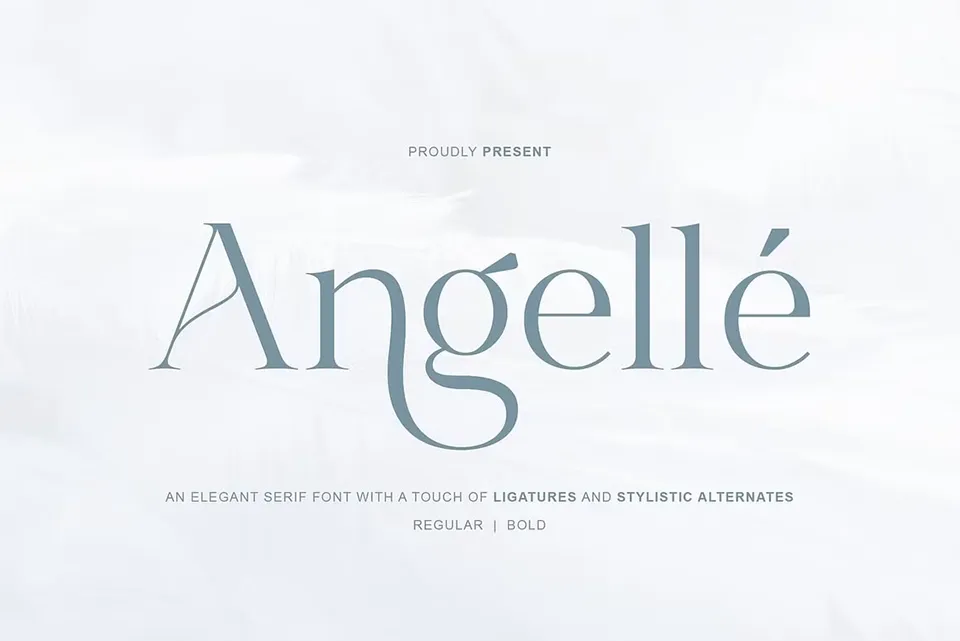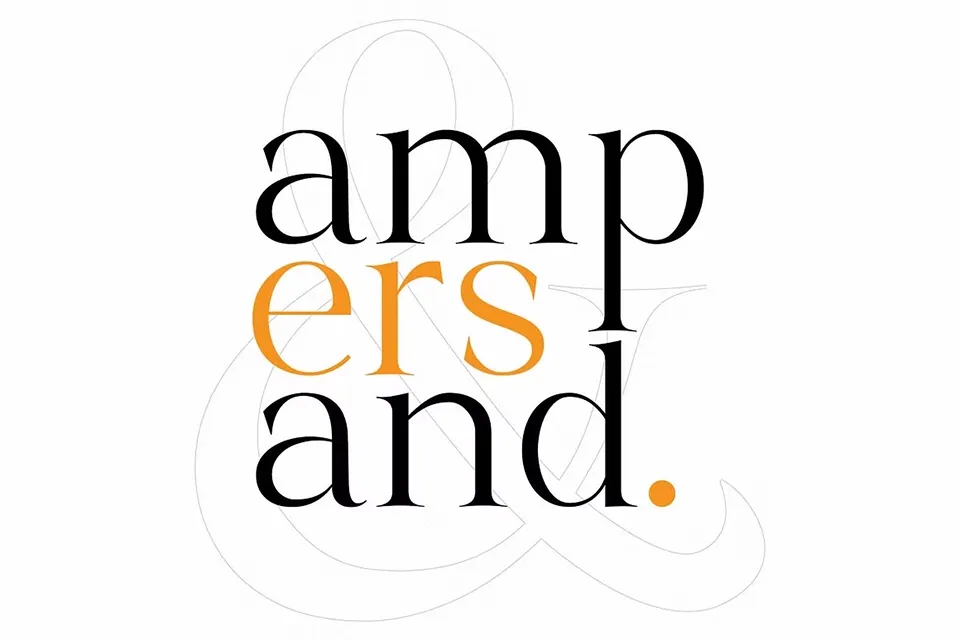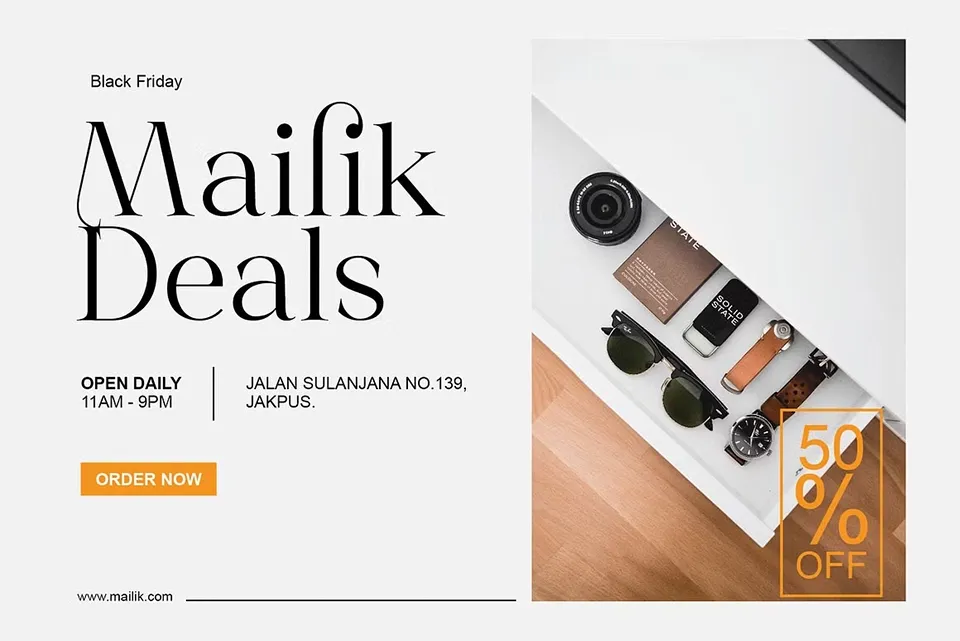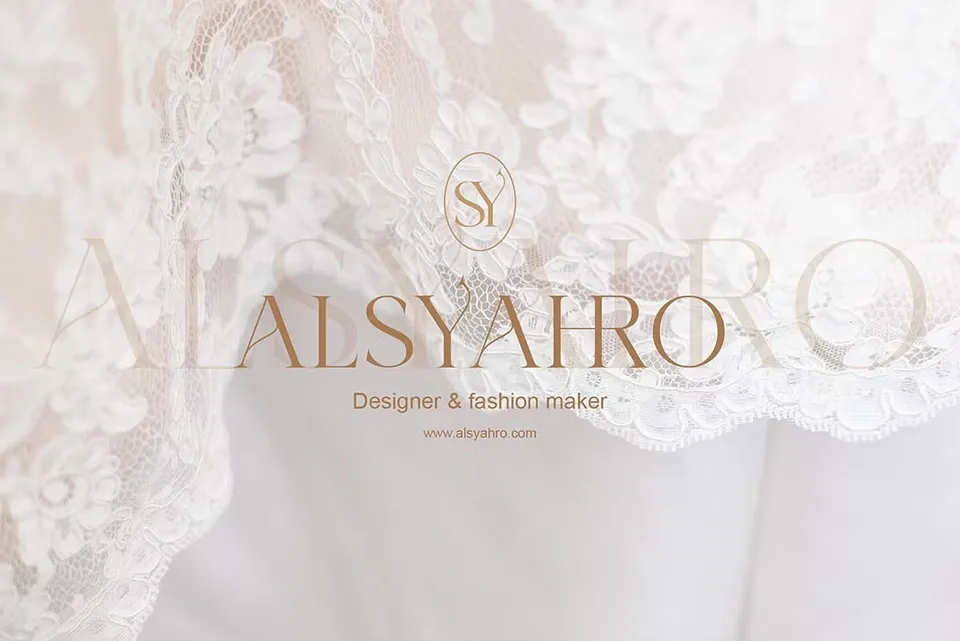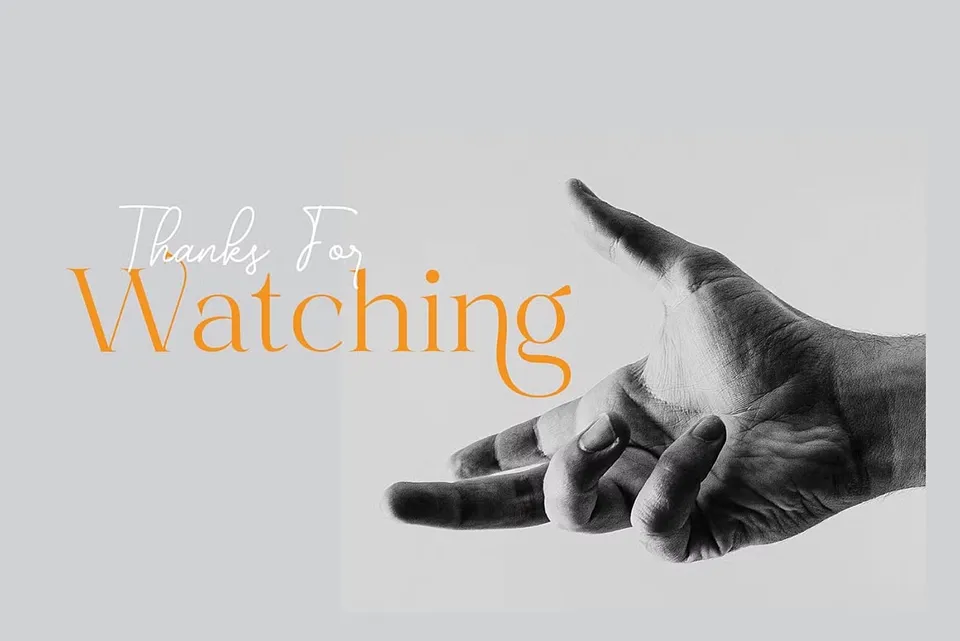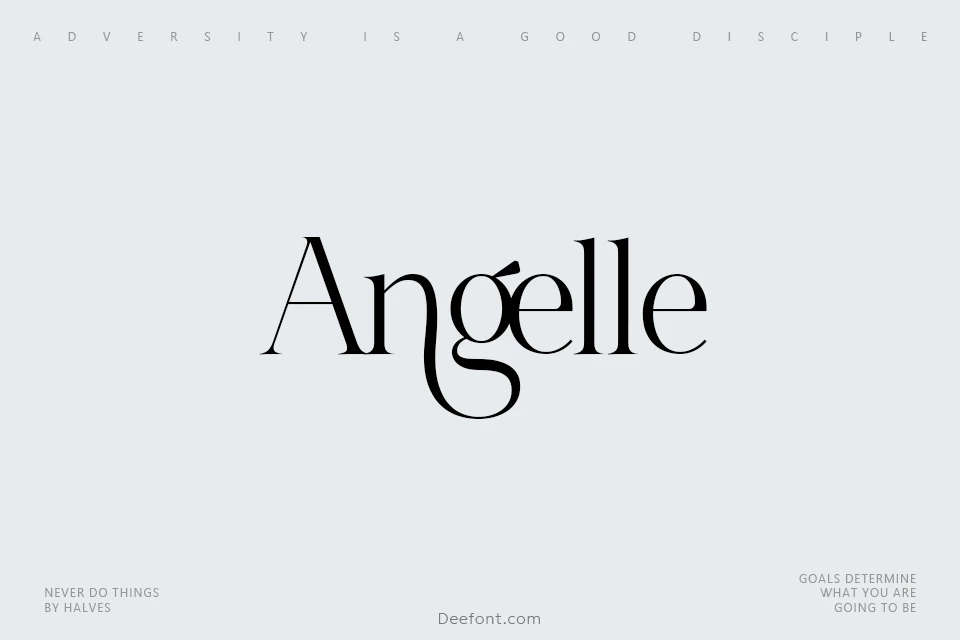
Angelle Serif Font
Angelle Font is an elegant serif typeface designed to bring sophistication and charm to your creative projects. With its graceful curves, refined ligatures, and stylish alternates, Angellé offers a modern twist on classic serif fonts. Perfect for branding, invitations, editorial designs, and more, this font comes in both regular and bold weights to suit a variety of needs. Its unique character shapes and attention to detail make it ideal for anyone seeking a touch of luxury and artistry in their typography. Elevate your designs effortlessly with the timeless beauty of Angellé Font.